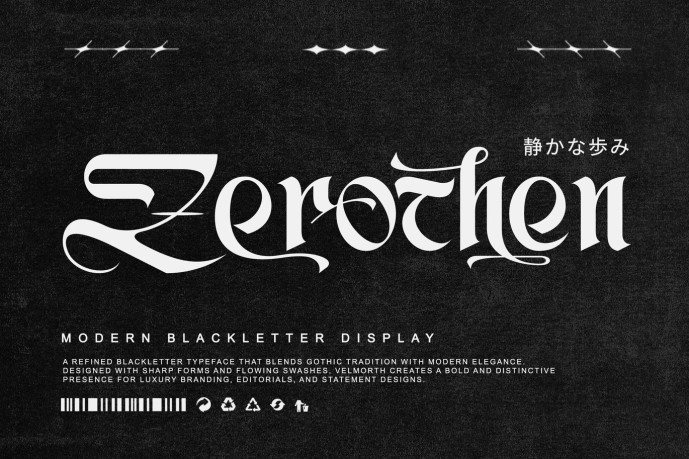
Zerothen – Modern Gothic Blackletter Font
Zerothen is a modern blackletter display font that combines the dramatic character of traditional Gothic typography with refined curves, flowing swashes, and elegance. Designed to create a bold and unforgettable visual presence, Zerothen features sharp letterforms, expressive terminals, decorative details, and beautifully crafted stylistic variations. Its distinctive appearance makes it ideal for designers who want to create typography that feels mysterious, artistic, powerful, and sophisticated. Zerothen works beautifully for luxury logos, tattoo designs, album covers, music posters, movie titles, editorial layouts, book covers, product packaging, and dramatic social media graphics.
Features:
Support multilingual; ä ö ü Ä Ö Ü ß ¿ ¡
Numerals & Punctuation
uppercase letters
Alternate, swash, titling & Ligature